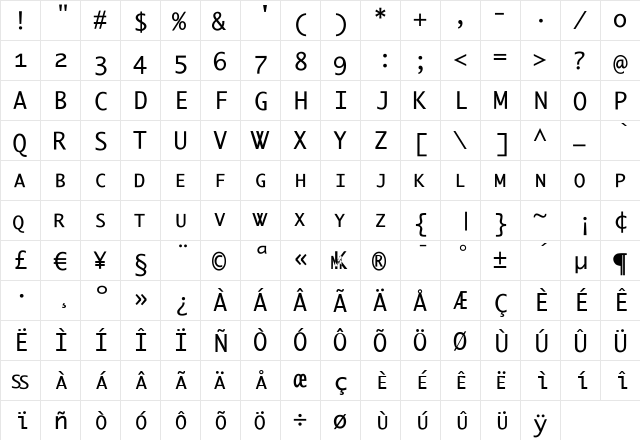
BerlinSmallCaps Regular
BerlinSmallCaps takes a measured approach to typography — its balanced proportions and neutral character make it a reliable workhorse for both digital and print work.